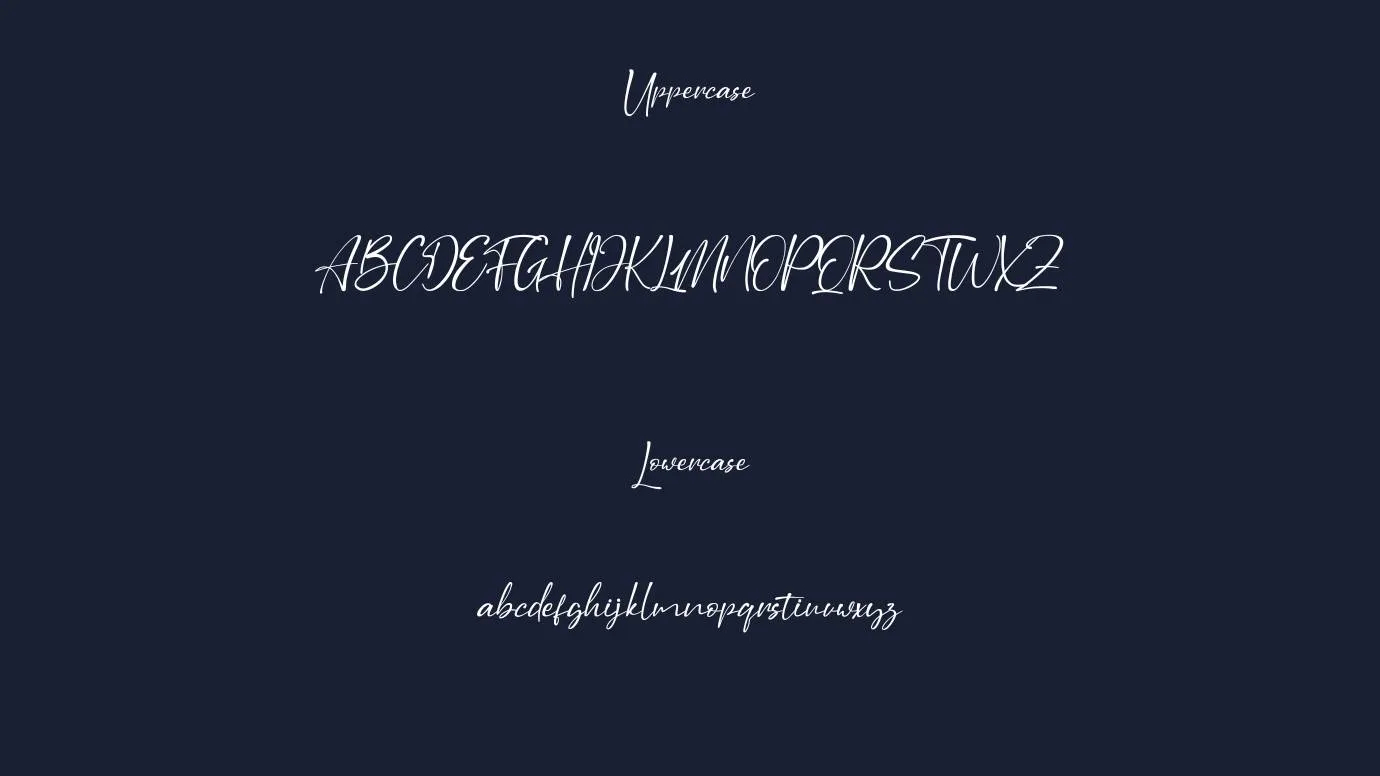
Stringlabs Script Font Free Download
In this post, We are going to share Stringlabs Script Font that falls in the classification of the script family of fonts. This typography was established and designed by StringLabs. This texture comes with brush-type swashes and stylistic alternates.
This typeface has a cool and hand-drawn structure that is very friendly to designers and users of fonts. This beautiful look font has multiple uses that are available in both paid and free versions.
Stringlabs Script Font